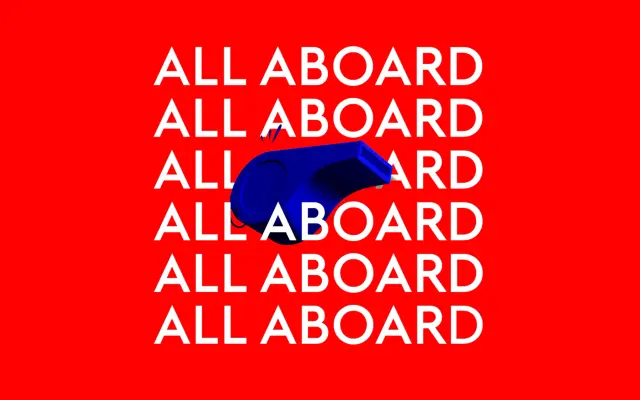
F37 Britain Humanist
F37 Britain Humanist specimen from F37 Foundry
The humanist sans within the F37 Britain collection, with calligraphic proportions across five weights from Hairline to Bold.
A humanist sans drawn for the F37 Britain collection. Ten styles run across five weights from Hairline to Bold with matching italics, so it can carry both running text and headline work. Sits alongside the other Britain families when you want a more open, calligraphic counterpart to the more neutral Britain Sans.
F37 classify F37 Britain Humanist as the humanist sans within the F37 Britain collection. It carries warmer, more calligraphic proportions than the geometric Britain Sans cut and is designed to read comfortably from text up to headline sizes.